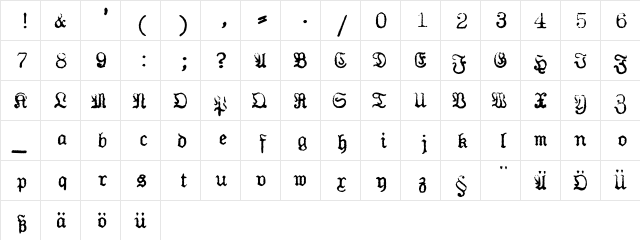
Erika Mono Fraktur PE
| Foundry | Andreas Brietzke |
| Designer | Andreas Brietzke |
Design Context for Erika Mono Fraktur Typeface
Erika Mono Fraktur channels the dramatic heritage of Fraktur and Gothic scripts, bringing a sense of historical gravitas to any design.
A natural fit for music packaging, gothic editorial design, and any project that needs historical weight.
Font Pairing: Pair with a clean neutral sans-serif for body copy to let Erika Mono Fraktur's character lead without overwhelming the composition.
Pro Tip: Reserve Erika Mono Fraktur for display and logo use — pair it with a clean sans-serif for body copy to prevent the composition from feeling oppressive.